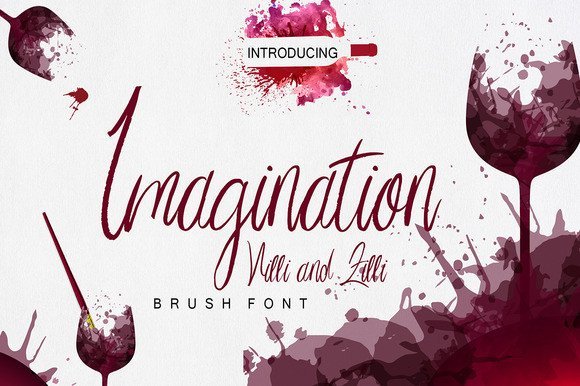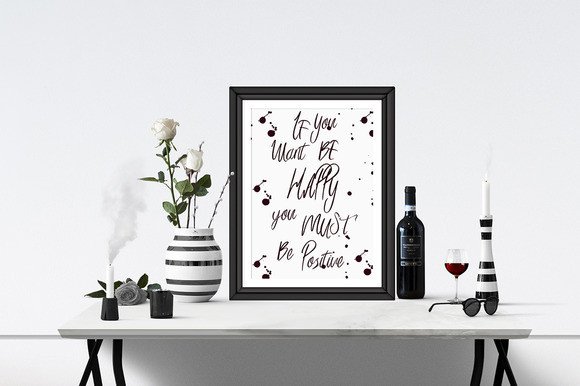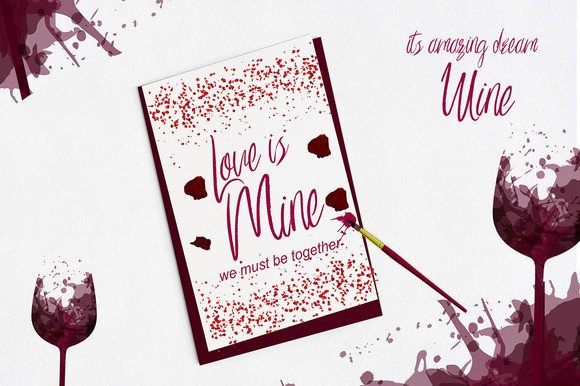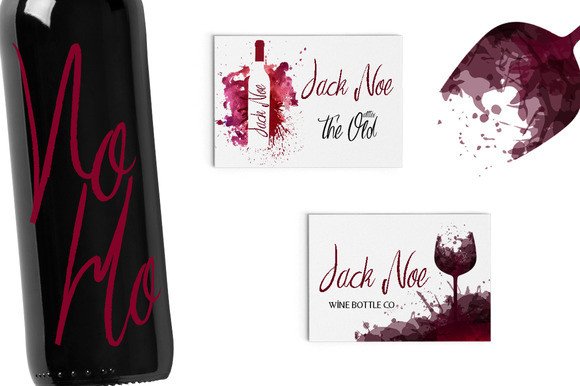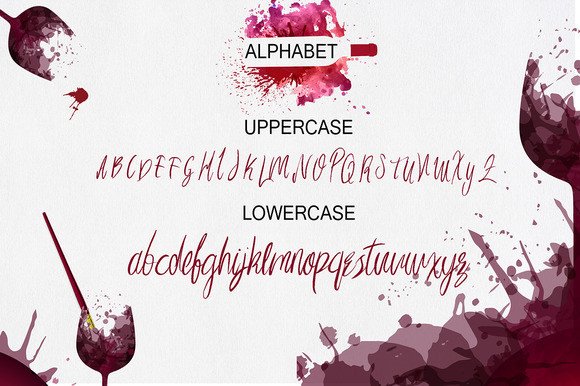
The Power of Imagination: Unlocking Creative Possibilities
Have you ever found yourself stuck in a creative rut, searching for that perfect spark to bring your ideas to life? It’s a feeling we’ve all experienced at some point or another. But what if I told you that there’s a font that can transport you to a world of endless possibilities and unleash your inner artist?
Introducing Imagination Font, a stunning brush font designed to inspire creativity and bring your imagination to life. Whether you’re a seasoned designer or just starting out, Imagination Font is the perfect tool to add a personal touch to your designs. From posters and t-shirts to letterheads and logos, this versatile font can be used for any project that requires a dash of creativity.
Imagination Font Key Features
- Unique Character Set: Includes a wide range of special characters, including emojis, symbols, and ligatures, to enhance creative expression.
- Variable Font: Designed as a variable font, allowing for smooth interpolation between styles and weights, making it ideal for dynamic typography.
- Language Support: Supports multiple languages, including Latin, Cyrillic, and Greek alphabets, making it suitable for global design applications.
Imagination Font Review
As a designer, I was excited to try out the Imagination Font and see if it lived up to its name. Overall, I’d say it’s a solid, yet somewhat predictable choice.
- It’s playful and fun, perfect for projects that need a whimsical touch.
- The font is highly legible, making it great for body text and longer blocks of content.
- The font’s unique flourishes and swashes add a touch of personality to headings and titles.
- It may be too playful for more formal or serious projects, where a more conservative font might be more suitable.
- The font’s irregularities can make it difficult to pair with other fonts, which may limit its versatility.
- Some characters may not be as well-designed as others, which can detract from the overall user experience.
Overall, I think the Imagination Font is a great choice for projects where you want to add a touch of fun and personality, but it may not be the best fit for more formal or complex designs. With some careful consideration and planning, it can be a valuable addition to your design toolkit.
Imagination Font: A Practical Application Guide
Imagination Font is ideal for creative projects, such as children’s book illustrations, fantasy novels, and whimsical advertising campaigns.
To get the most out of Imagination Font, experiment with different font sizes, colors, and arrangements to create visually striking effects.
Consider combining Imagination Font with other creative elements, such as hand-drawn illustrations or 3D graphics, to add depth and interest to your designs.